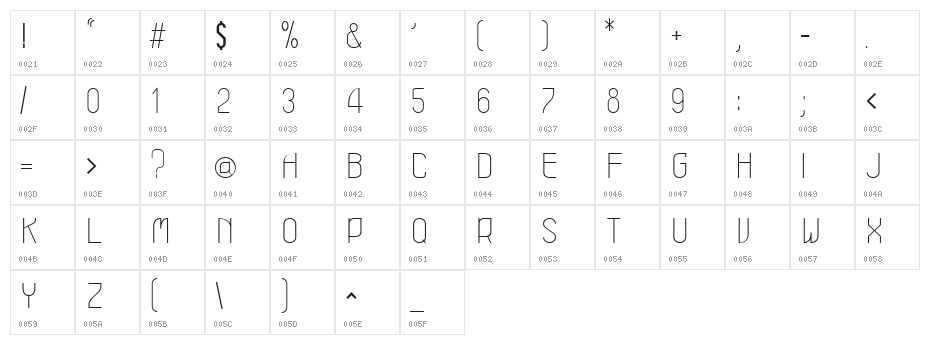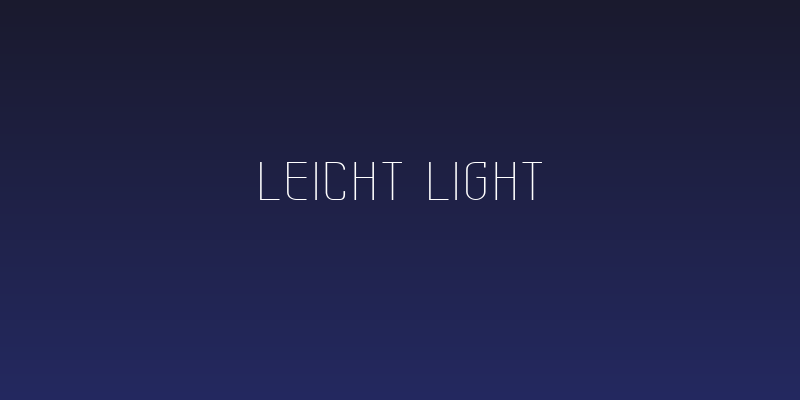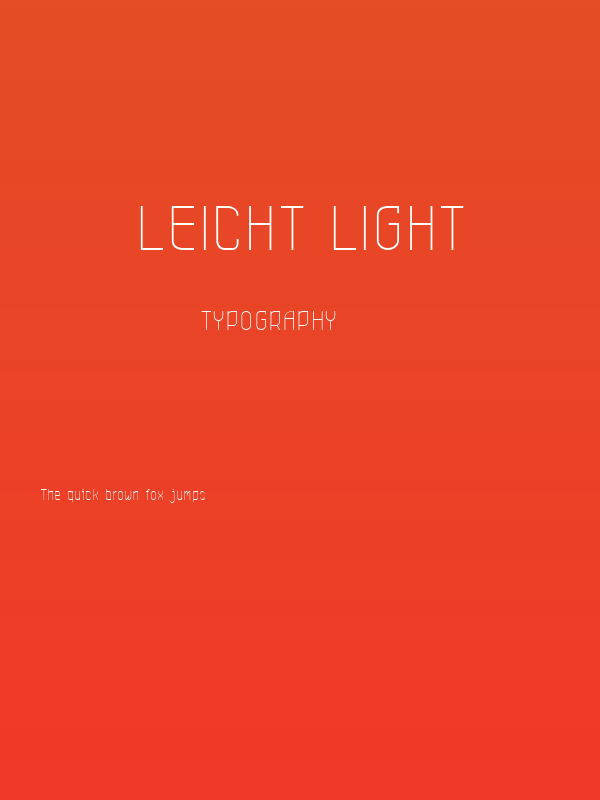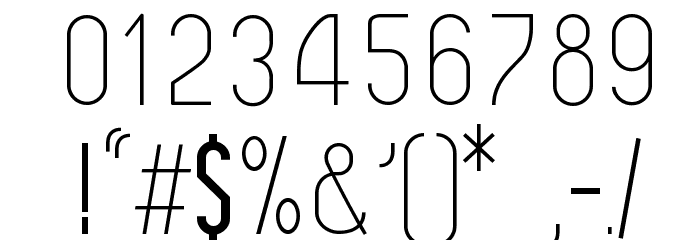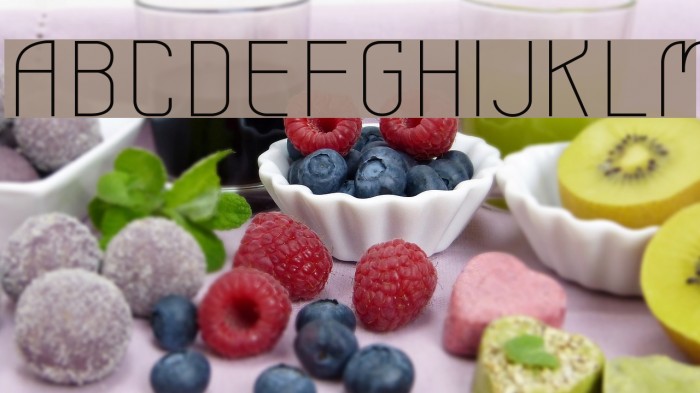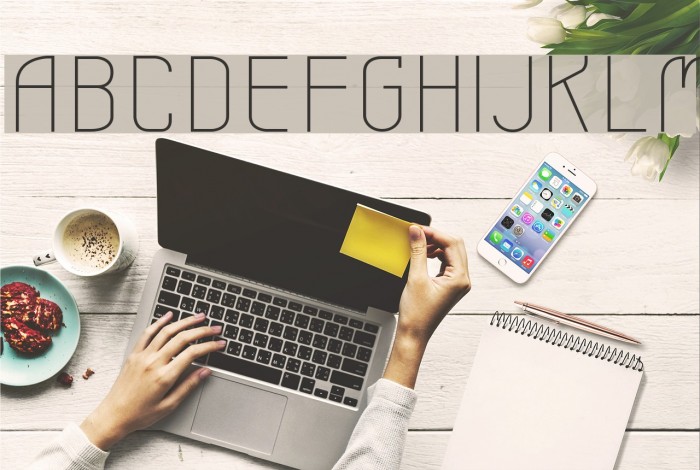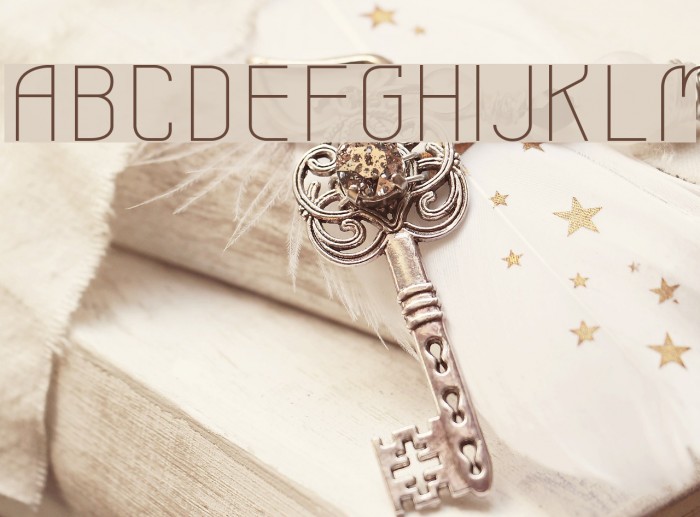
Leicht light Font
Leicht light Description
This font features a sleek, modern design with a minimalist aesthetic. The characters are tall and narrow, with clean lines and a geometric structure. The uppercase letters are uniform in height, while the lowercase letters maintain a consistent x-height, contributing to a harmonious appearance. The numerals are similarly styled, ensuring readability and consistency across different uses. The special characters are designed to match the overall style, with a focus on simplicity and clarity. This font is well-suited for projects that require a contemporary and professional look.
| Proposed Projects | Ideal for branding, editorial design, digital interfaces, and minimalist posters. |